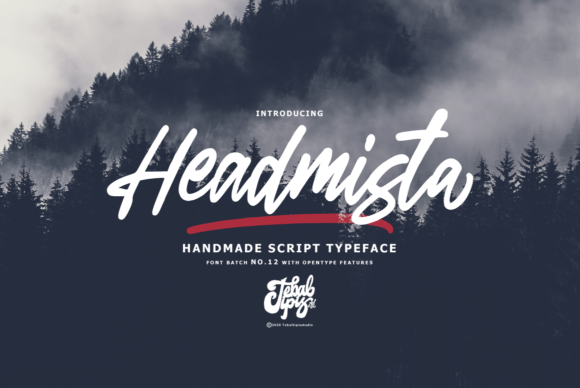
Journey into the world of Headmista, the exquisite script font that embodies both professionalism and an irresistible burst of personality. With its elegant curves and captivating letterforms, Headmista effortlessly elevates any design project, leaving a lasting impression that will make heads turn.
Picture this: you're working on a wedding hanger, and you need a font that radiates sophistication while capturing the essence of love and celebration. Headmista is your perfect match. Its graceful strokes and delicate flourishes will transform your hangers into stunning works of art, cherished keepsakes that will be treasured for years to come.
Unleash your creativity with Headmista as you design logos that exude elegance and professionalism. Its versatile style effortlessly adapts to various industries, from fashion and beauty to lifestyle and travel. Logos adorned with Headmista will undoubtedly leave a mark, making your brand unforgettable.
Envision creating captivating badges that speak volumes about your brand's identity. Headmista's unique character adds a touch of charm and memorability that sets you apart from the competition. Let your badges shine with Headmista's allure, attracting customers and leaving a lasting impression.
Package your products with panache using Headmista's captivating style. Its beautiful letterforms will elevate your packaging design, creating an experience that feels both luxurious and inviting. Customers will be drawn to the intricate details and elegant flow of Headmista, making your products irresistible.
Headmista's versatility extends to headlines and posters, transforming them into striking visual statements. Let your words dance across the page with Headmista's grace and energy. Your headlines will captivate readers, demanding attention, while your posters will become stunning centerpieces that command admiration.
Headmista, a font that transcends the ordinary and embraces the extraordinary. Its PUA encoding grants you effortless access to a treasure trove of glyphs and swashes, empowering you to unleash your creativity like never before. Embrace the limitless possibilities and let Headmista lead you on a journey of design excellence.